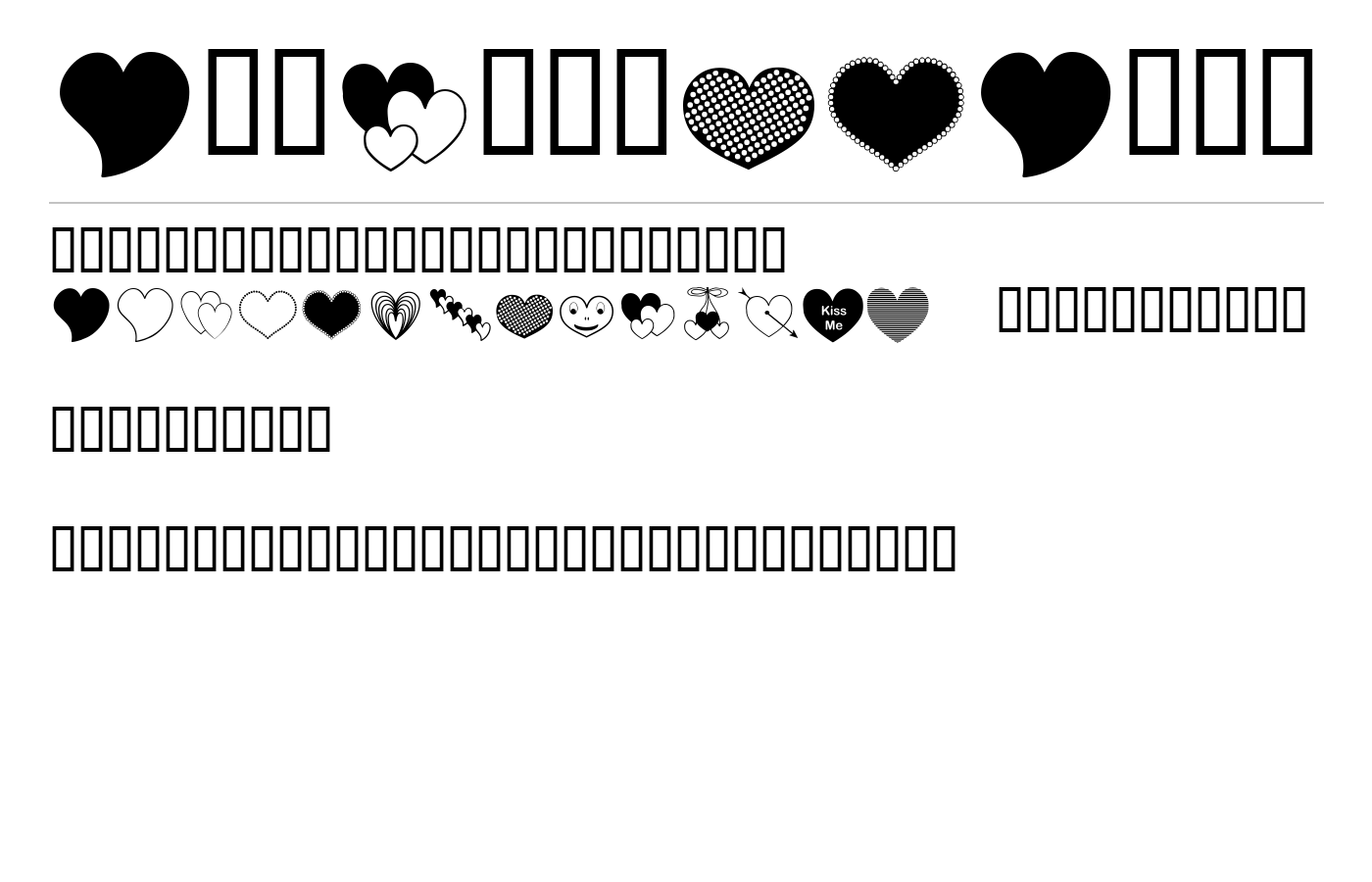
The ap_justhearts font is a charming, playful symbol font composed entirely of various heart shapes and decorative heart-themed icons. Its design is bold and visually engaging with a mix of solid, outlined, and patterned hearts, making it perfect for adding a whimsical, romantic touch to creative projects. This font works best for fun, affectionate designs like greeting cards, invitations, or decorative accents, where a lively and heartfelt mood is desired.
ap_justhearts Font